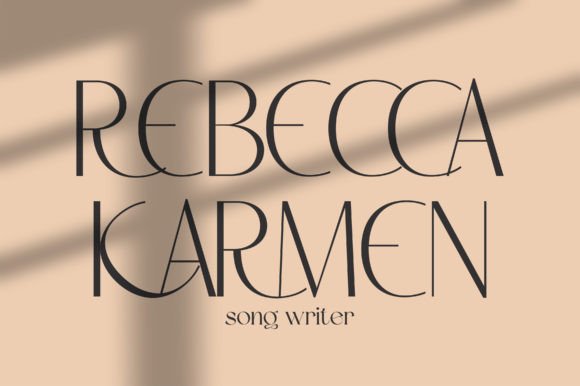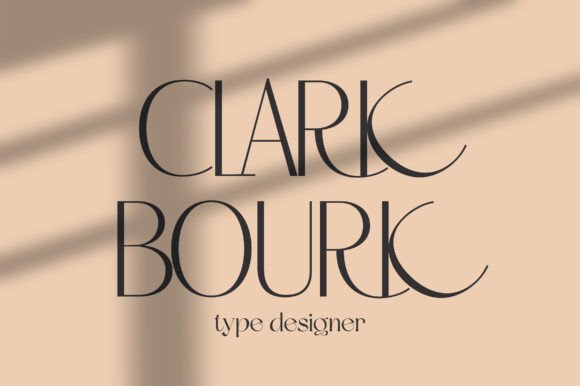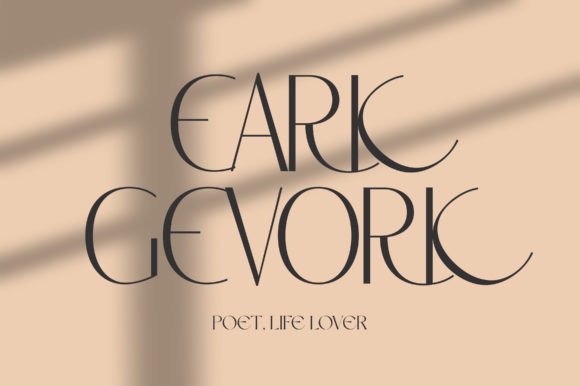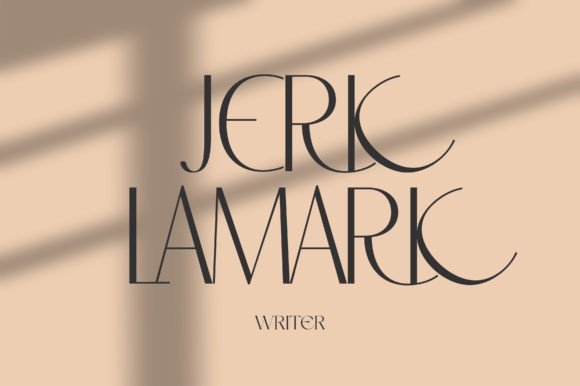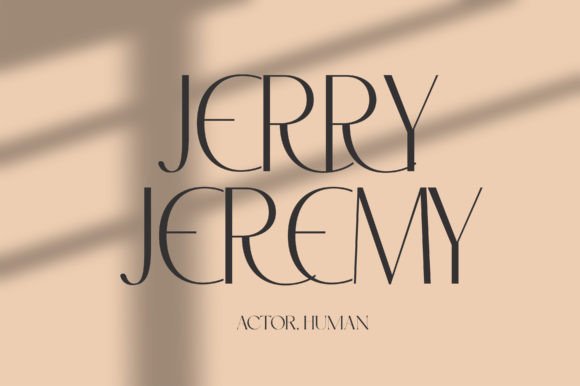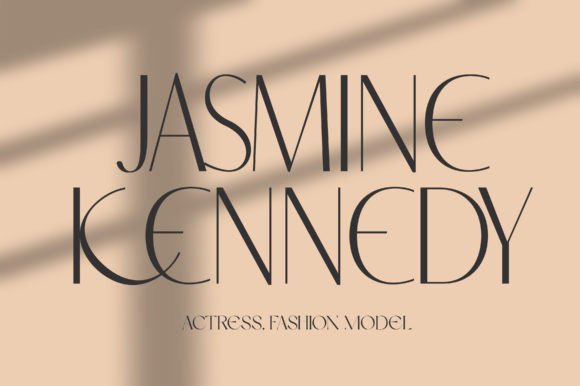
Discover the Art of Simplicity with Ericka Font
Enter Ericka Font, a stunning sans serif font that embodies elegance and sophistication in every letter. Whether you’re crafting a logo, building a website, or developing a brand identity, Ericka Font is the perfect partner to help you elevate your design to new heights. With its clean lines and minimalist charm, Ericka Font is a valuable asset for designers who crave simplicity and sophistication.
Ericka Font Key Features
- Font Family: Ericka is a sans-serif font family.
- Font Size: Designed to be used at font sizes between 10pt and 24pt for optimal readability.
- Resolution: Suitable for both screen and print use at resolutions up to 300 DPI.
- Unique Characteristics: Ericka features a clean, modern design with rounded edges and a subtle x-height, making it suitable for use in digital and print media.
Ericka Font Review
Overall, I’d say the Ericka Font has some great qualities that make it a solid choice for certain projects, but it’s not without its limitations. Here’s a balanced review of what works well and what doesn’t.
- Unique Elegance: Ericka Font exudes a sophisticated and elegant vibe that’s perfect for high-end branding or luxury projects.
- Good Readability: Despite its elegant feel, the font is still quite readable, even at smaller sizes.
- Comprehensive Character Set: The font includes a wide range of characters, including accented letters and symbols.
- Limited Expressiveness: The font’s elegance can also make it feel a bit too formal or stiff for more creative or playful projects.
- Not Ideal for Body Text: While Ericka Font is great for headings or titles, it’s not the best choice for large blocks of body text.
In conclusion, the Ericka Font is a solid choice for projects that require a touch of elegance and sophistication. While it may not be the best fit for every project, it’s definitely worth considering for the right applications.
Tips for Getting the Most Out of Ericka Font
To get the most out of Ericka Font, consider the following tips:
- Use Ericka Font in conjunction with bold or italic text to add emphasis.
- Experiment with different font sizes and styles to achieve the desired look.
- Combine Ericka Font with other fonts to create a unique and visually appealing design.
Ericka Font is commonly used in
Alternatives to Ericka Font
Ericka Font is a sans-serif font known for its modern and elegant look. Here are some alternatives for designers to consider:
Lato is a sans-serif font designed by Łukasz Dziedzic. It is a good alternative to Ericka Font for body text due to its high legibility and neutral design. Lato is more rounded and has a softer look than Ericka Font.
Design Projects with Ericka Font
Create a unique and charming invitation for a garden party or wedding using the Ericka Font. The script style of the font will add a touch of elegance and sophistication.
Q: Does Ericka Font support multilingual characters?
Yes, Ericka Font includes a wide range of multilingual characters, including Latin, Cyrillic, and Greek alphabets, as well as various punctuation marks and symbols. This makes it an ideal choice for designing content in multiple languages and scripts.